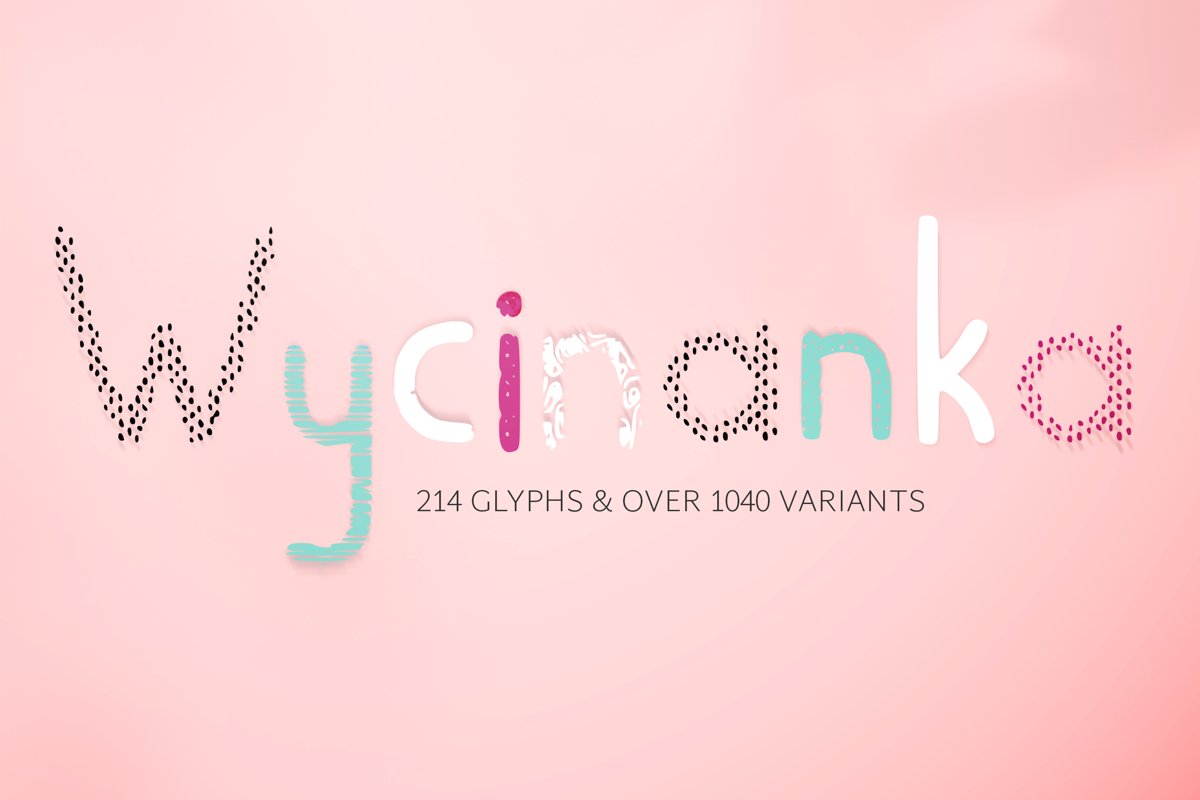
Wycinanka font
Introduce Bazgru Bazgru font is an adorable typeface. Just perfect for all your humorous and lovely projects, headings, flyer, greeting cards, T-shirts, logos and much more.
This font includes 214 glyphs and over 1040 variants!